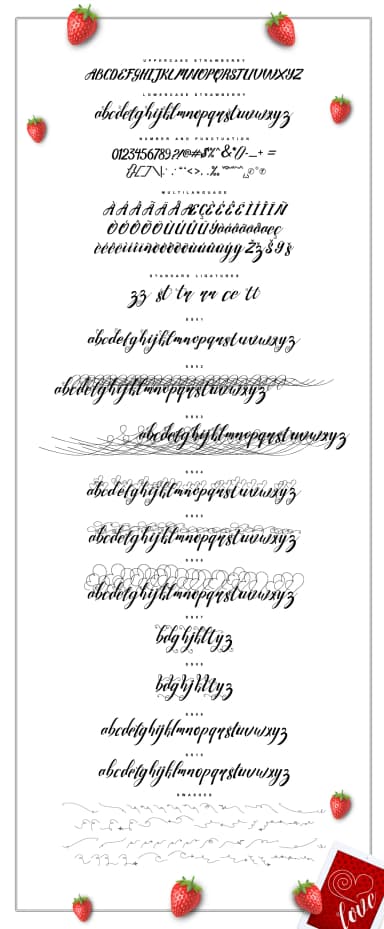
Strawberry Font by feydesign is a flowing calligraphy typeface that infuses projects with expressive charm and refined elegance through its extensive collection of letterforms and stylistic variations. The family includes multiple complementary weights and distinctive styles, from compact mini versions to expansive upstair letters, along with decorative left and right swashes that add graceful flourishes to every character. These thoughtfully crafted variants work beautifully for wedding invitation suites, artisanal greeting card designs, luxury skincare and beauty packaging, and decorative quote graphics that demand visual refinement and distinctive character. The versatile character set and numerous alternates make this particularly well-suited to designers seeking layered elegance without unnecessary ornamentation. Each stylistic option gives you meaningful creative control over the mood and personality of your text, ranging from understated refinement to full-featured ornamental richness. Whether you're crafting personalized stationery sets, decorative social media graphics, boutique product labels, or hand-drawn aesthetic branding projects, the multiple weights and swash variations provide flexible, beautiful solutions for your typography needs. The Pro version further expands your creative toolkit with additional glyphs and enhanced connectivity options for seamless letter interactions and layered compositions. Transform your design work by discovering Strawberry Font on Creative Fabrica and unlocking its full potential for sophisticated, heartfelt typography.
Strawberry Font is a script font that shines as a display or heading face. Pair it with a clean sans-serif or serif font for body text β the contrast creates a clear hierarchy while the two styles stay balanced and easy to read.
Strawberry Font
by feydesign